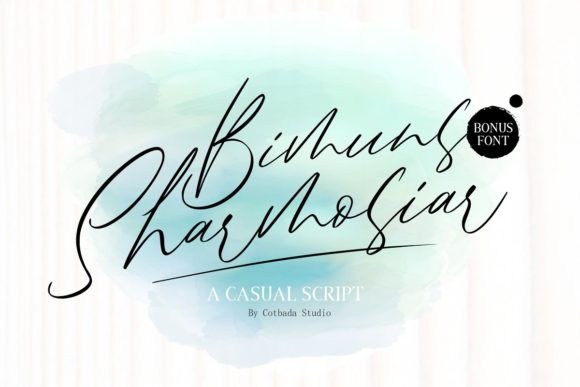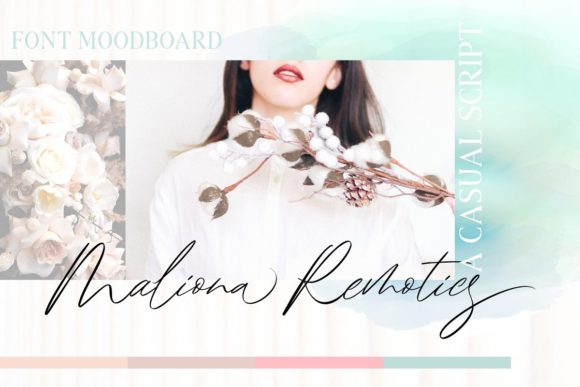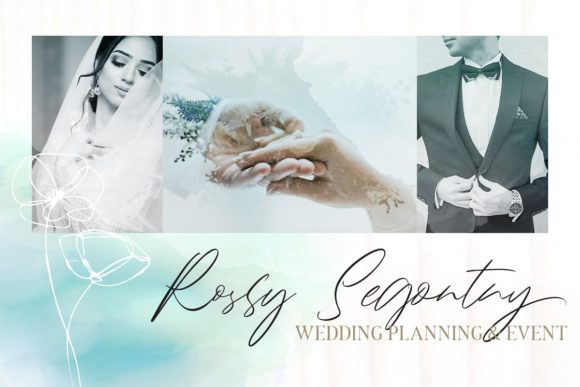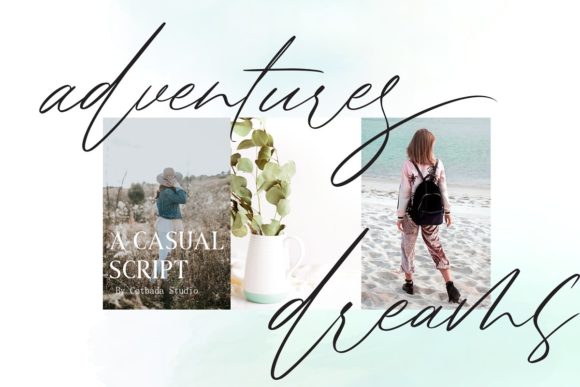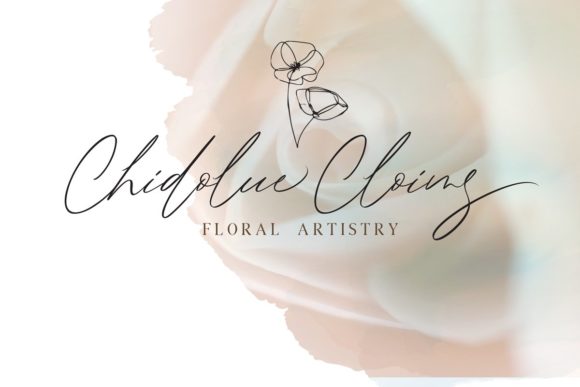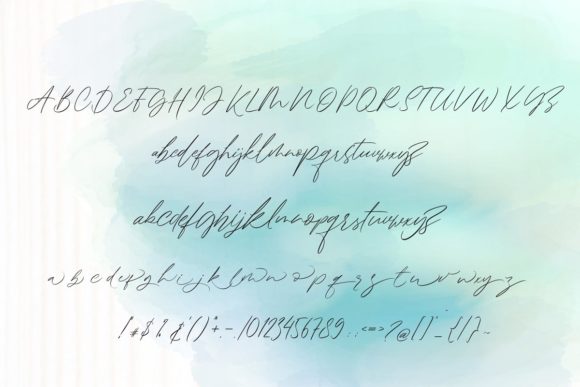
Bimuns Sharmosiar Font
About Bimuns Sharmosiar Font
Bimuns Sharmosiar is a bold and unique script font with an elegant and light feel. It will turn any design idea into an eye catcher!